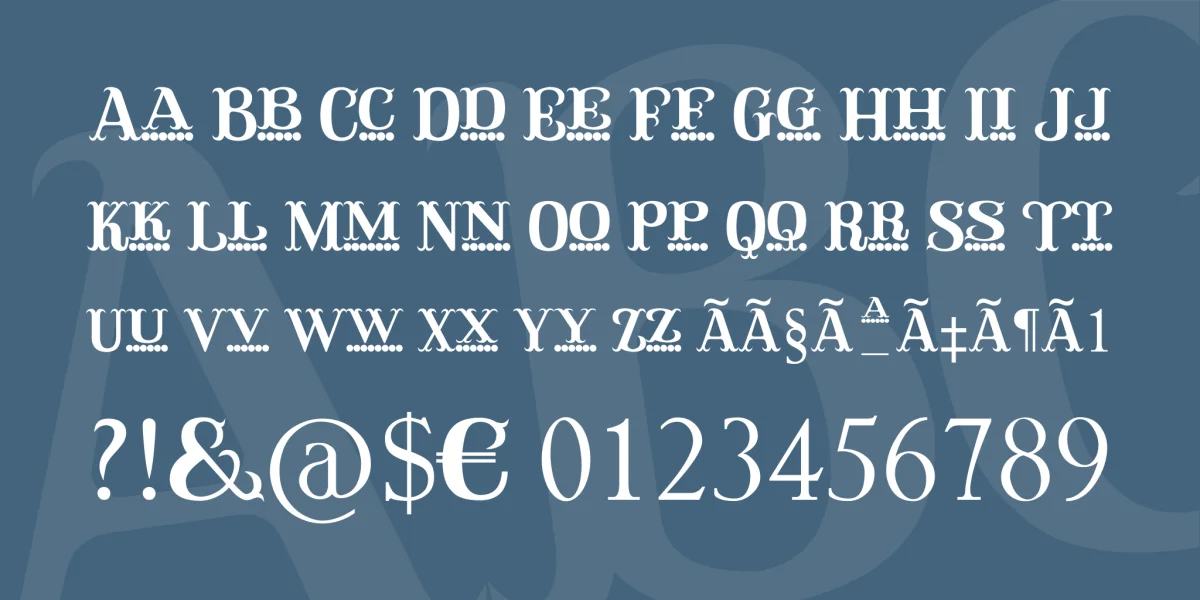
Qirkus was designed after i watched an old movie and liked the titles which had big curls. I added the dots to underline the 'lower case'glyphs because it proved too complicated to design traditional lower case letters.